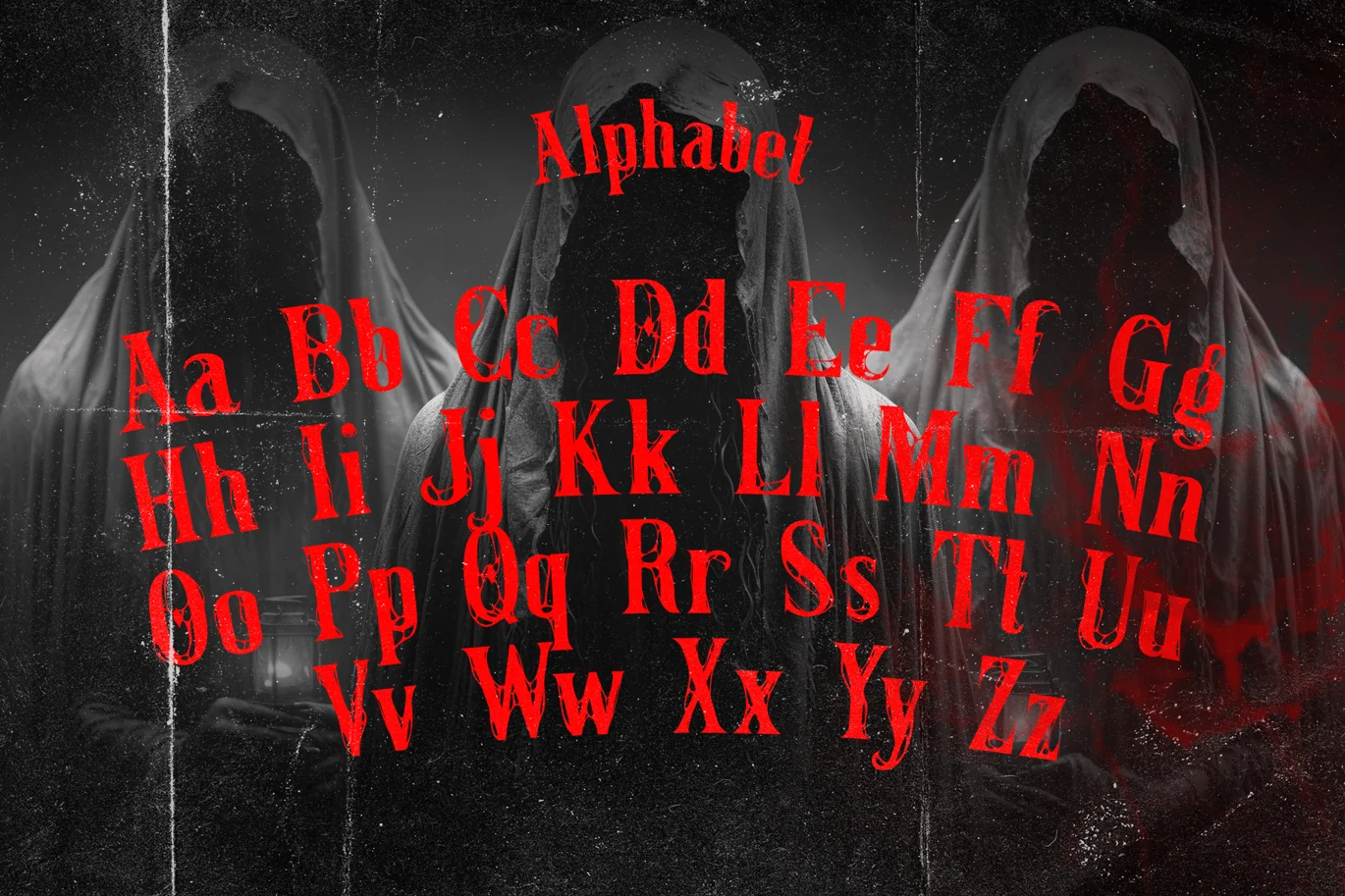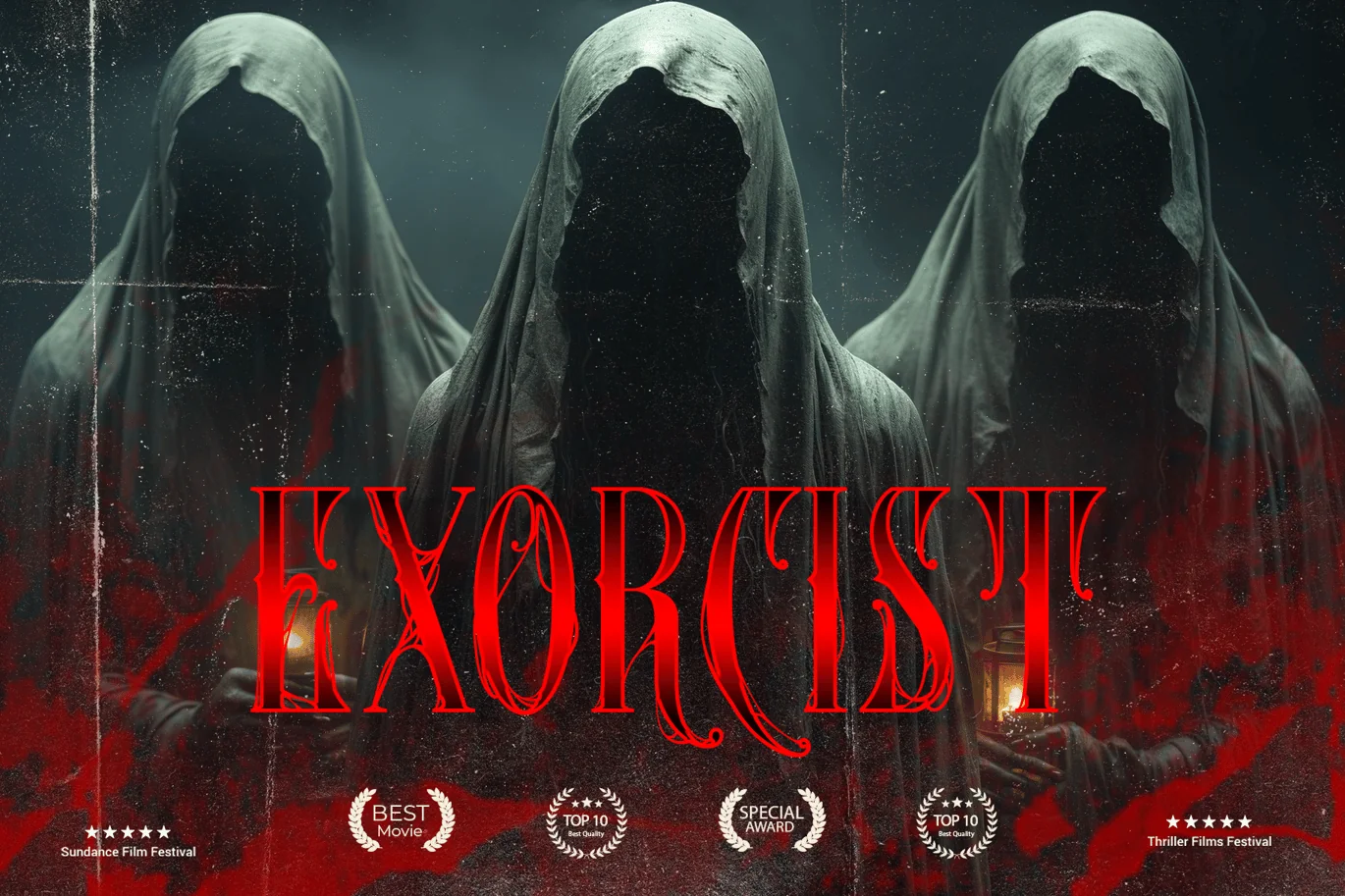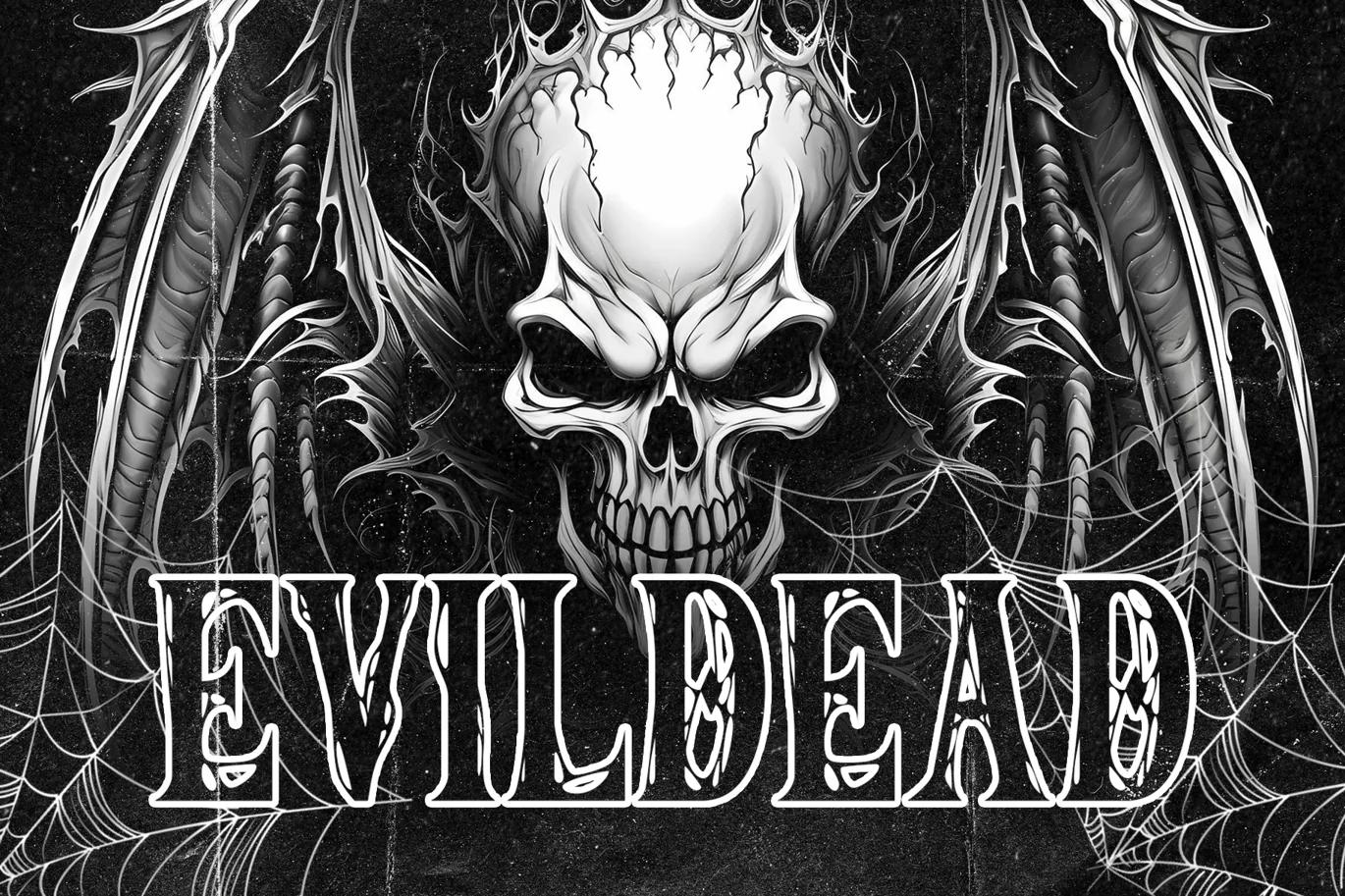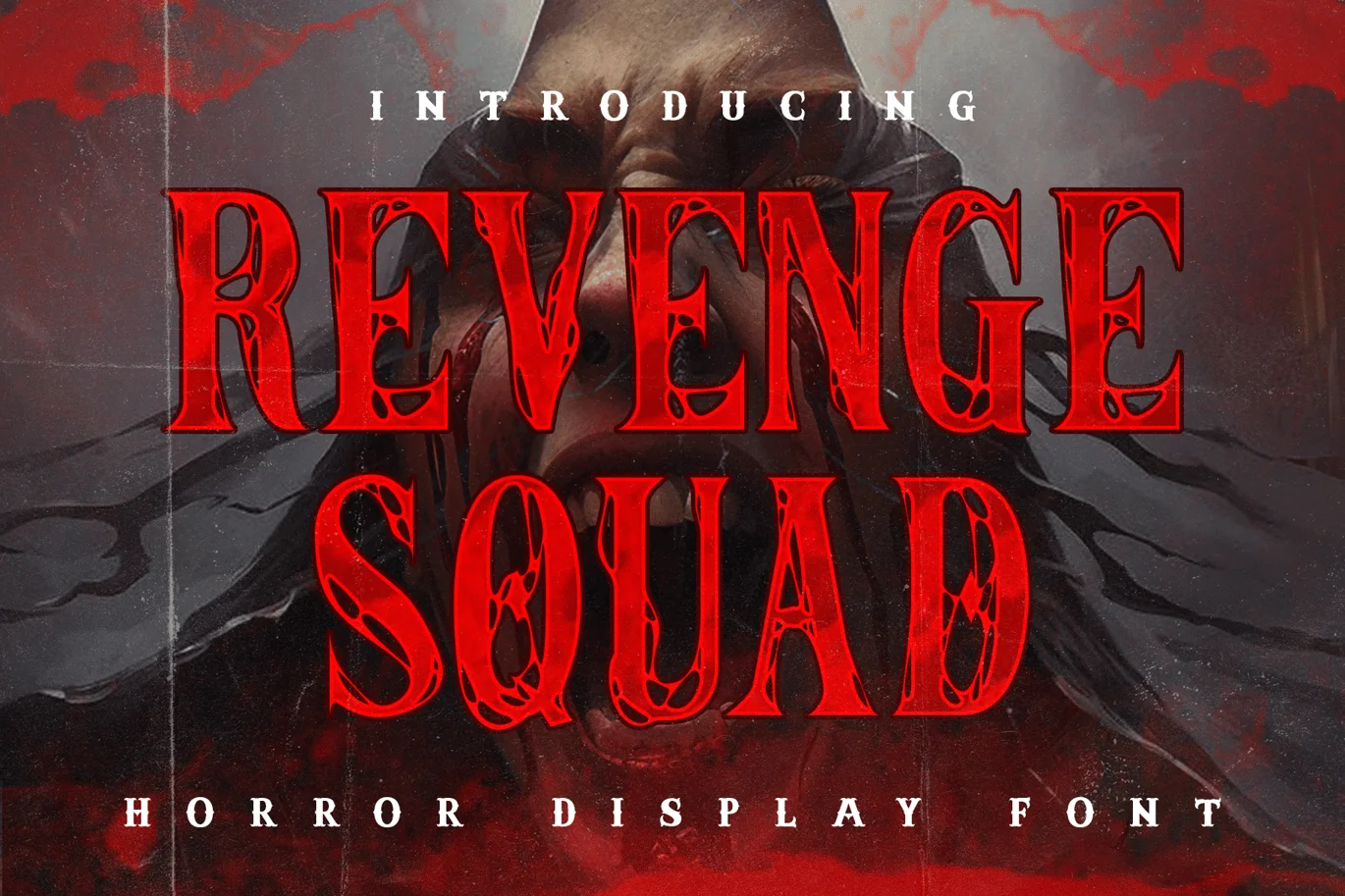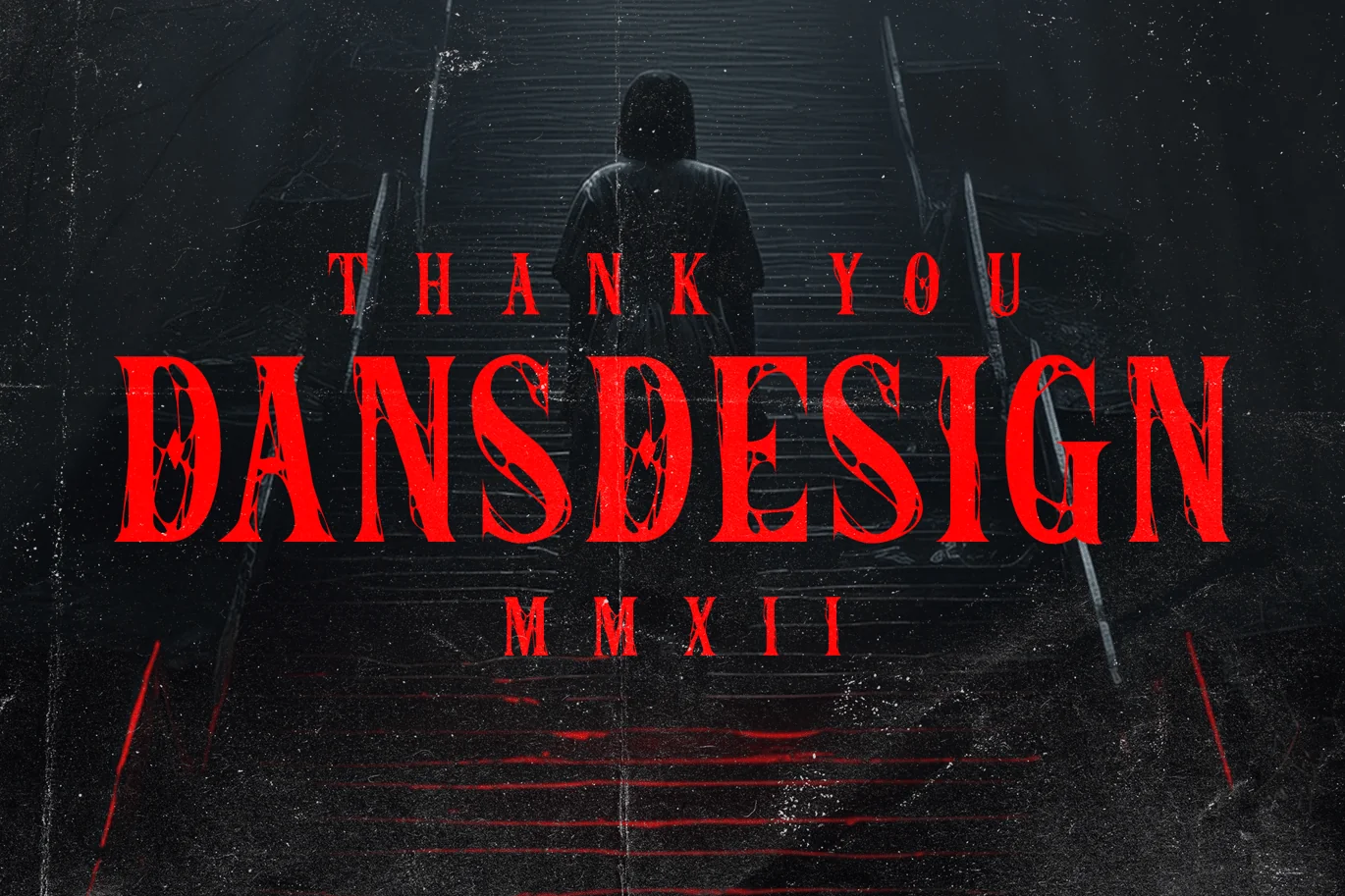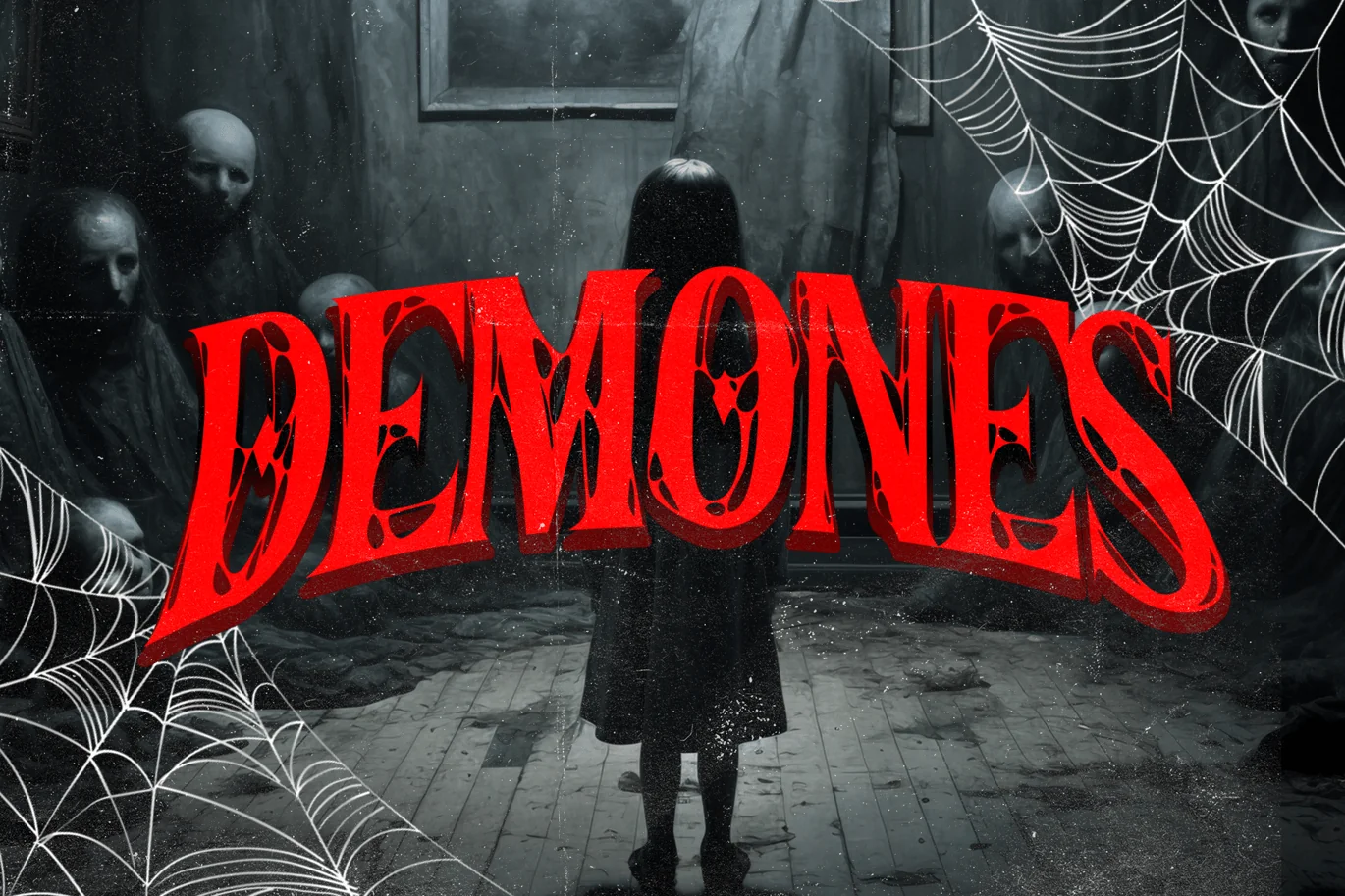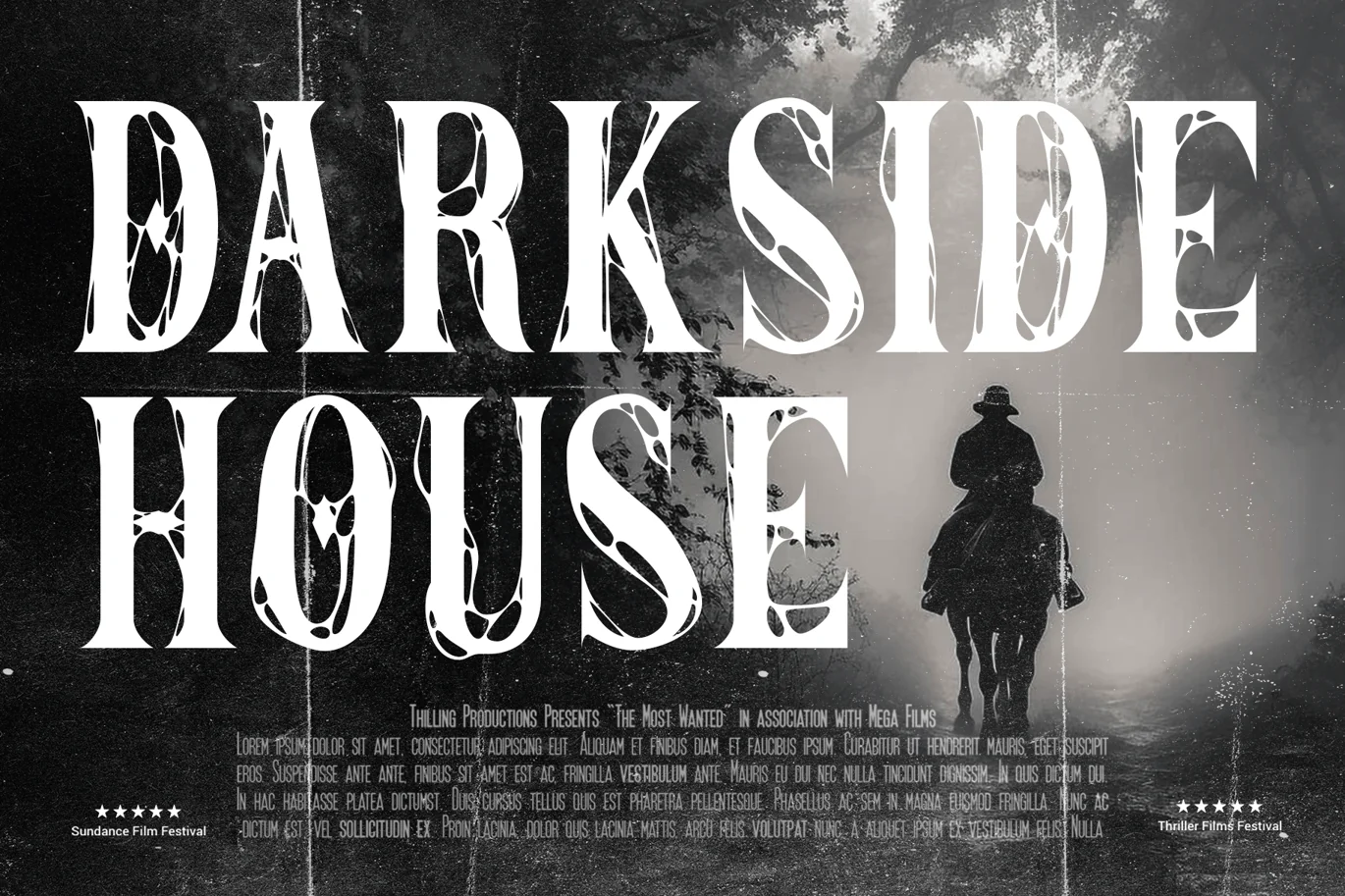
Revenge Squad Metal Horror Font
Revenge Squad Metal Horror Font is a distinct, highly detailed, and Horror Metal Font font. It would make a great choice for exquisite Music, Poster, retro-urban designs, tattoo business branding, logos, vintage designs, and more.